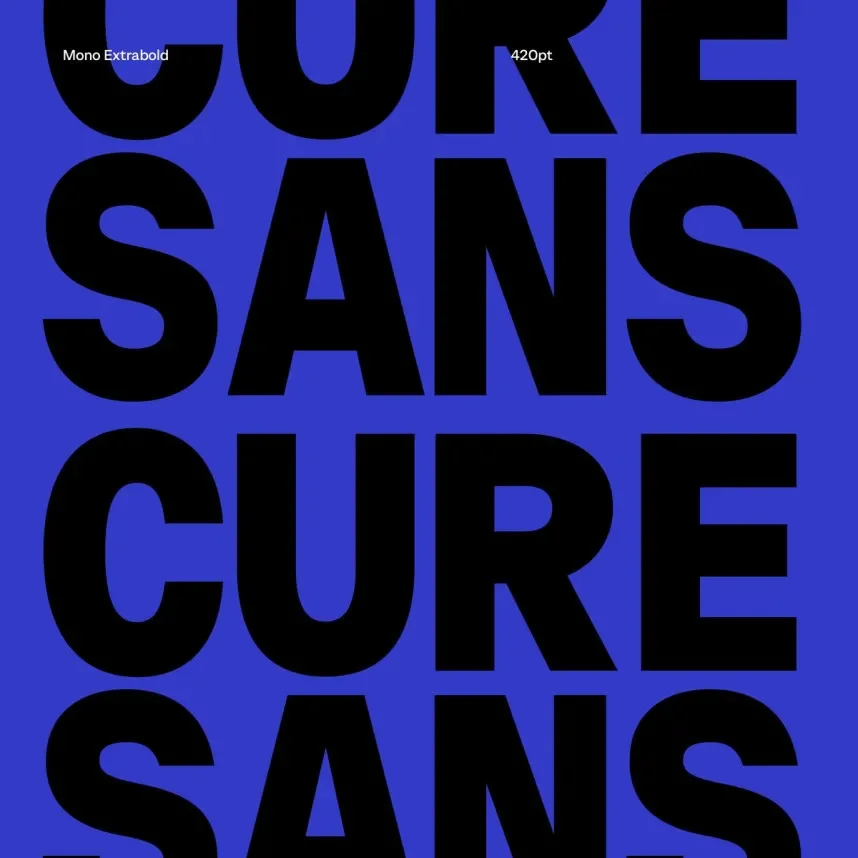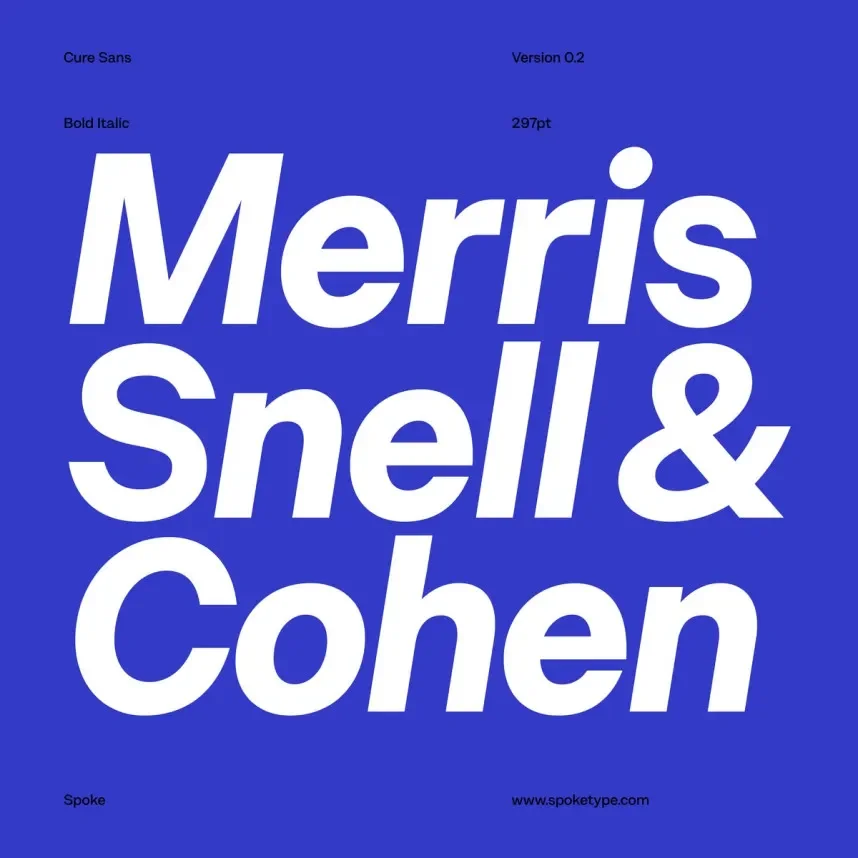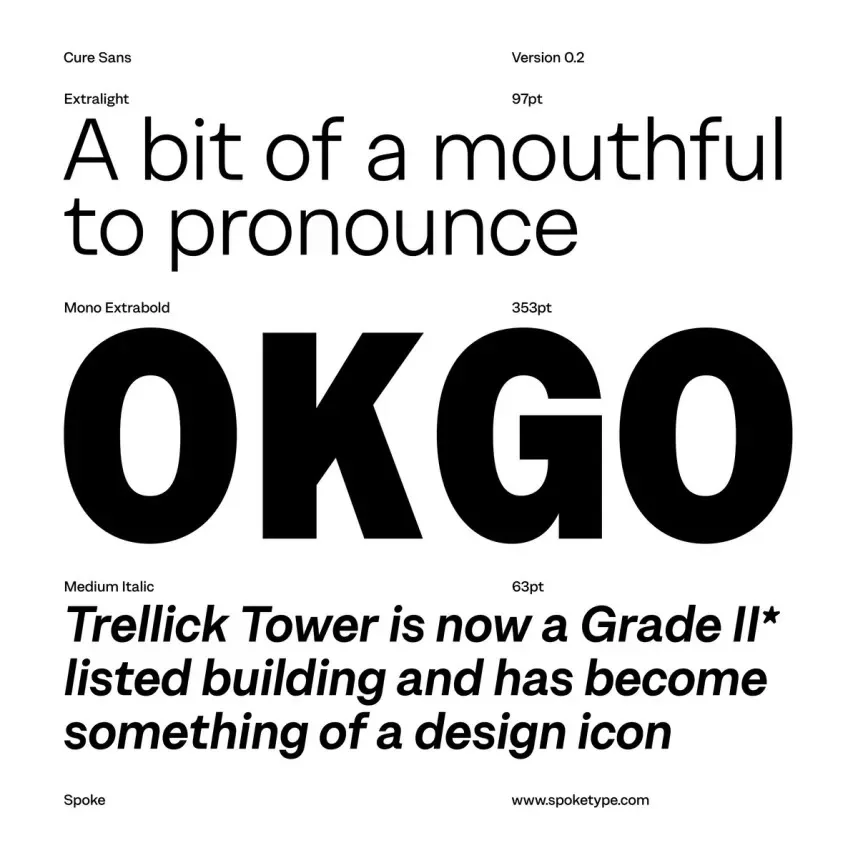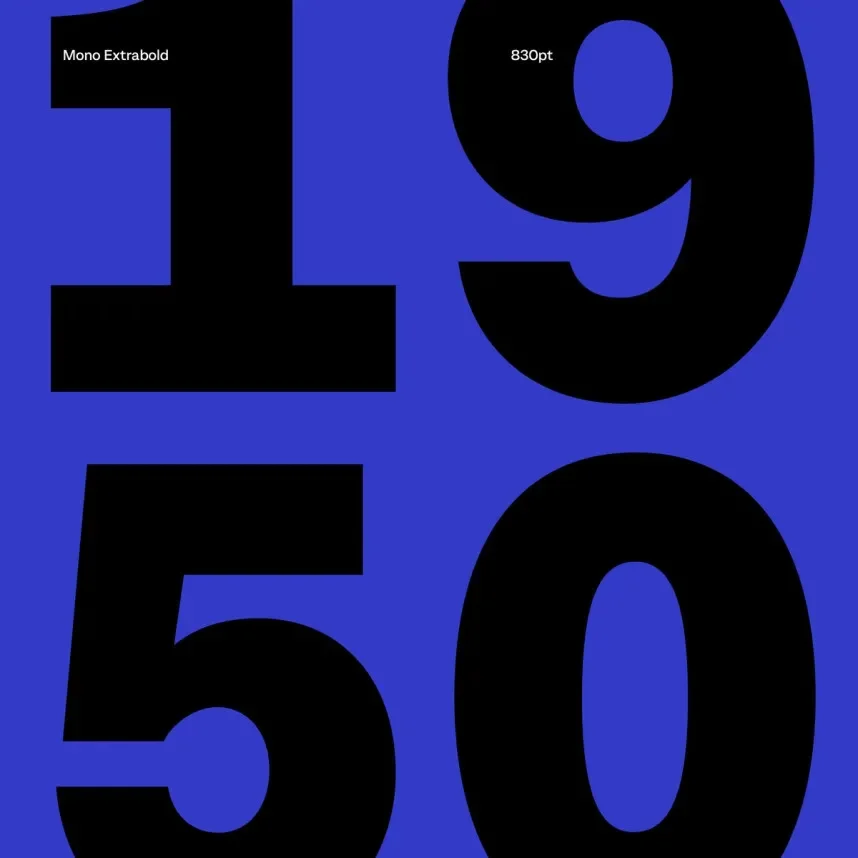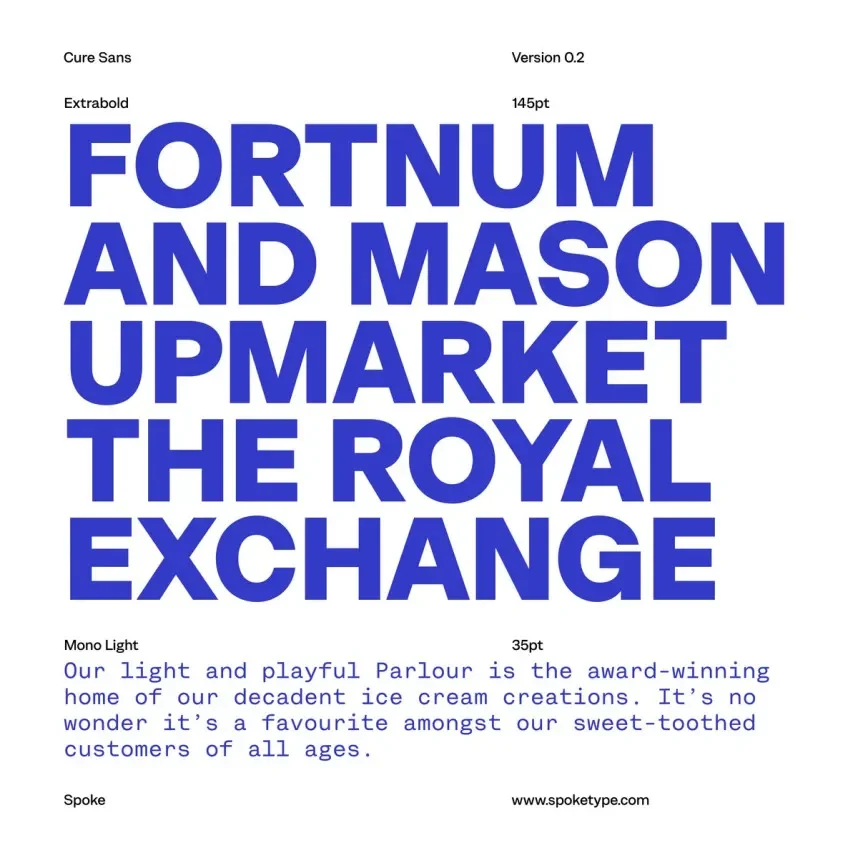
Cure Sans Font Family
Designed by Spoketype
Cure Sans Font Family is a sans-serif type system designed to fix common readability and consistency issues in branding, UI design, and web layouts. Designers often need a flexible font family that keeps interfaces clear while supporting logos, headings, and body text across platforms.
Cure Sans is built with simple letterforms, even stroke widths, and open apertures. These features improve legibility on screens and in print. The font family usually includes multiple weights, allowing designers to create hierarchy without mixing typefaces. Its neutral structure supports long reading, short labels, and interface elements. Characters follow modern sans-serif standards with balanced spacing and consistent x-height.